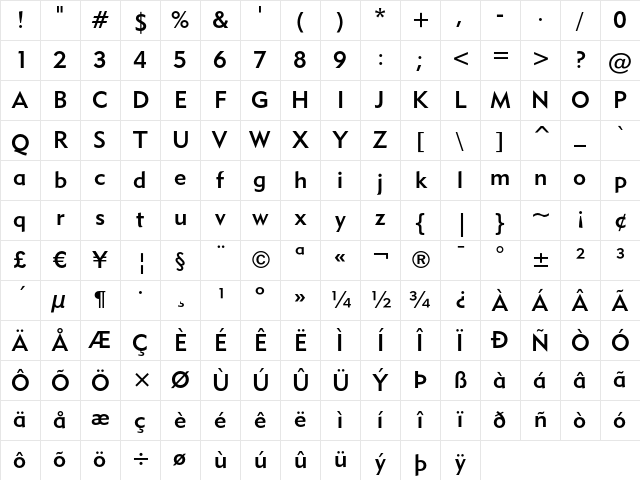
Complete Geometric 415 Medium glyph index. Displaying only characters natively supported by Geometric 415 Medium font.
Geometric 415 is a composed and adaptable typeface that performs quietly and consistently across a wide range of design contexts.